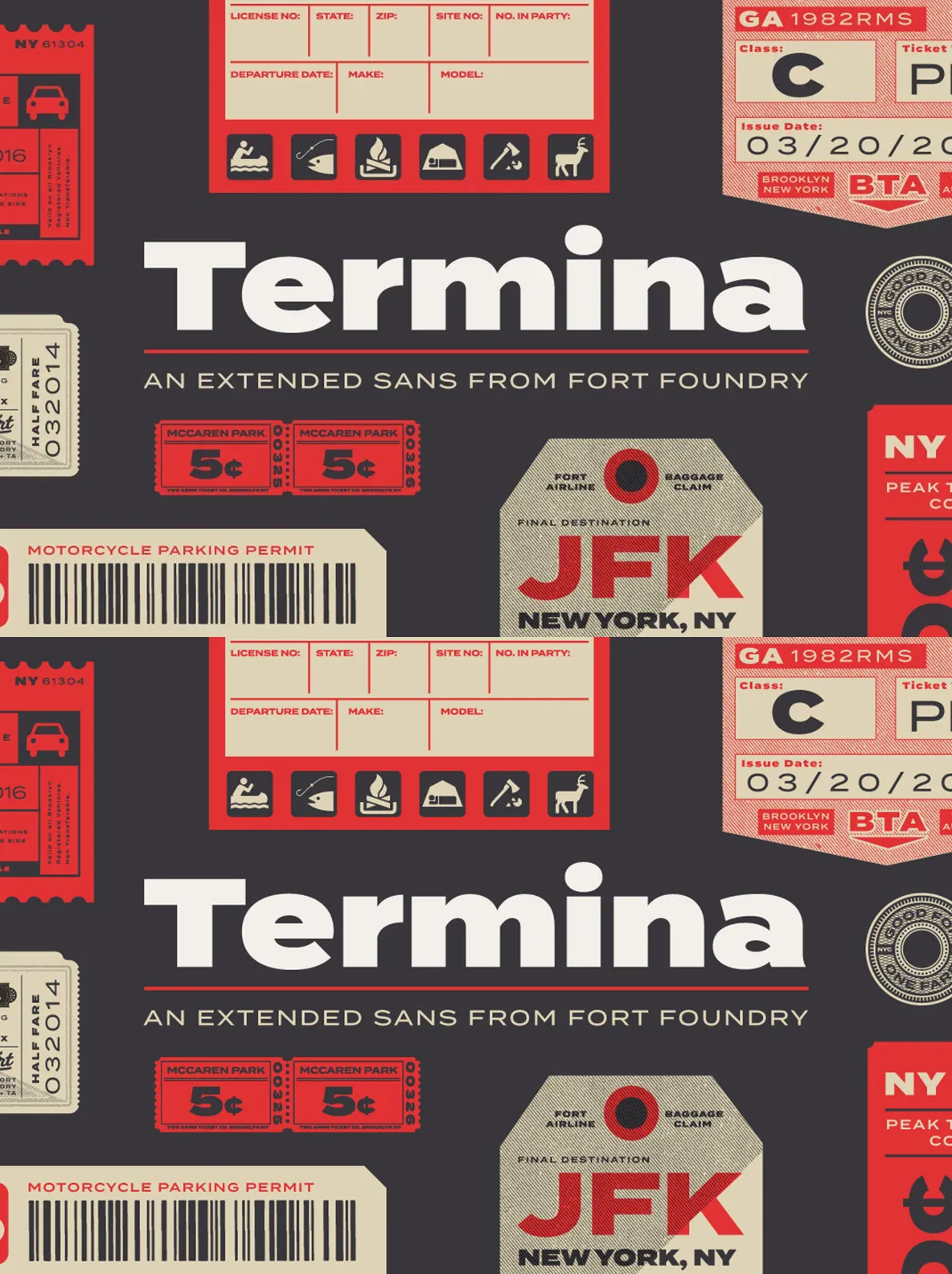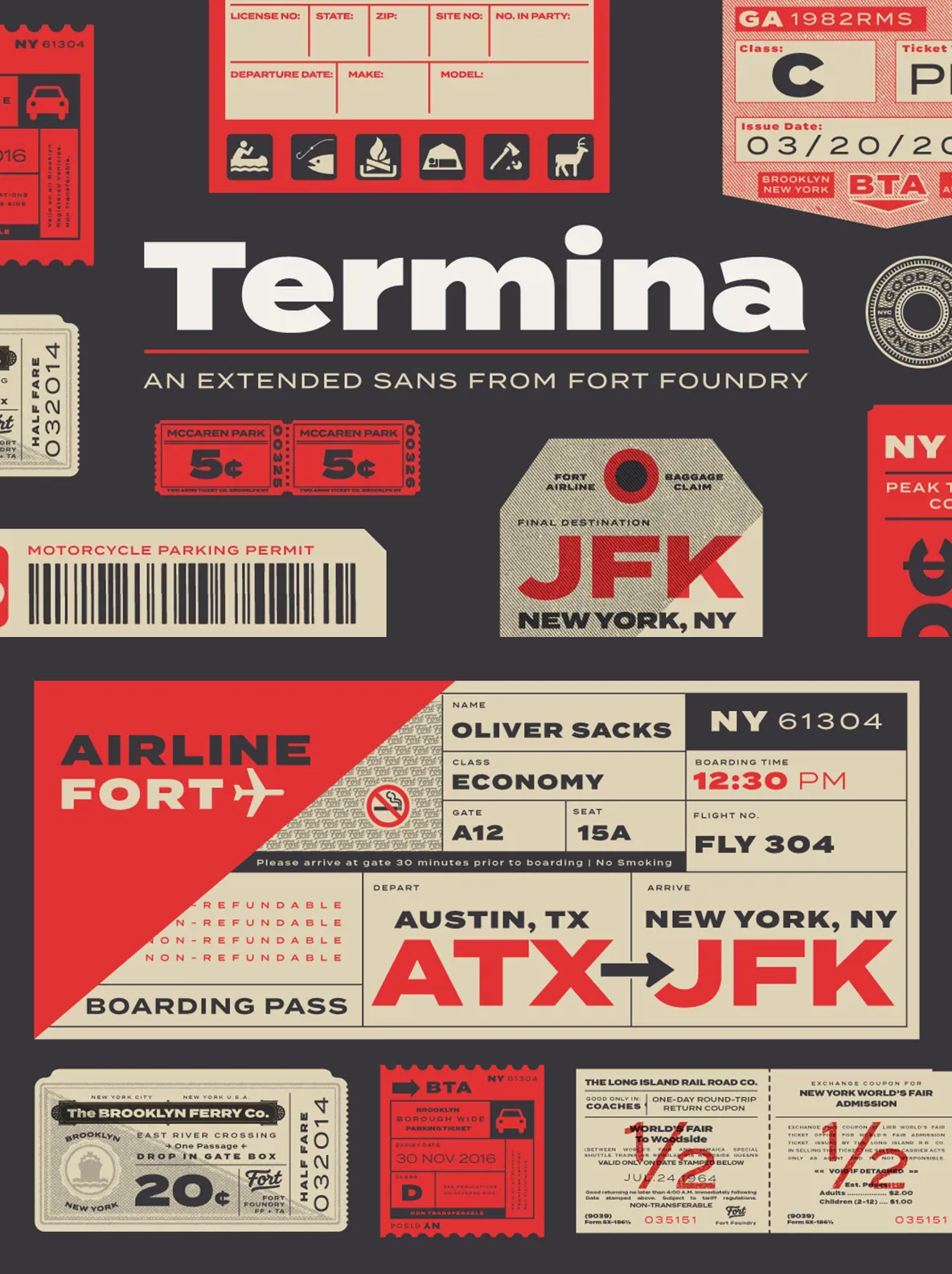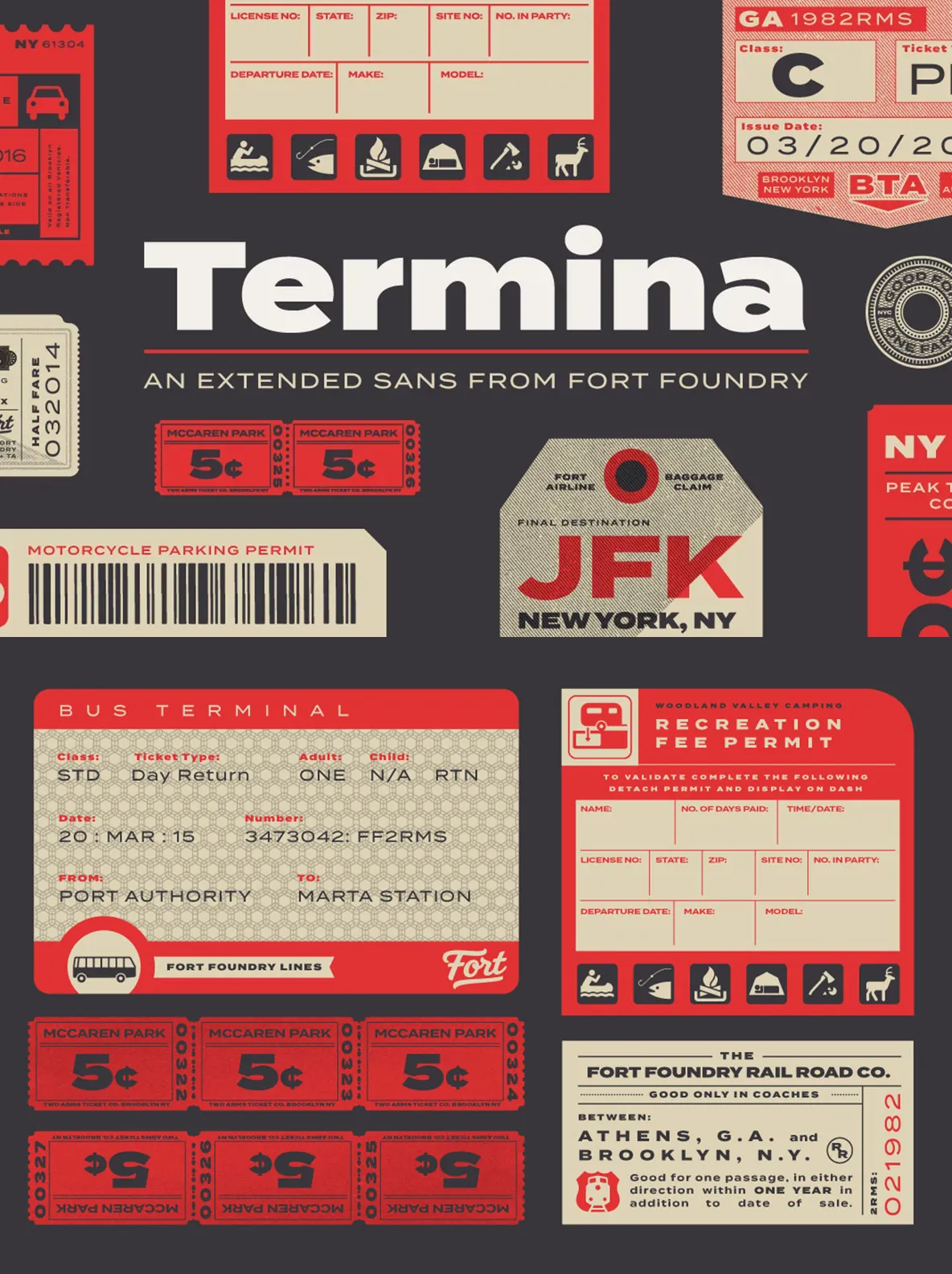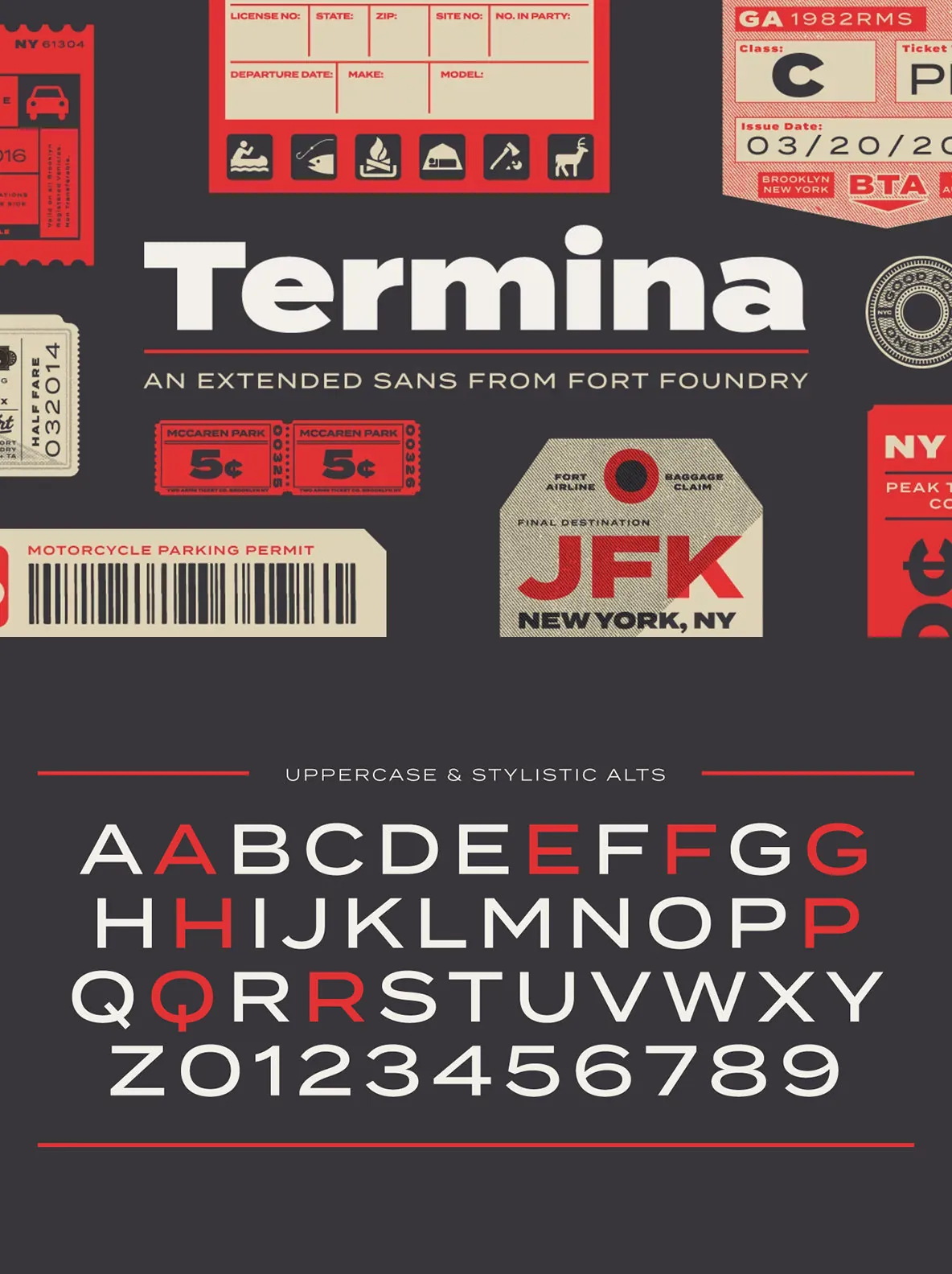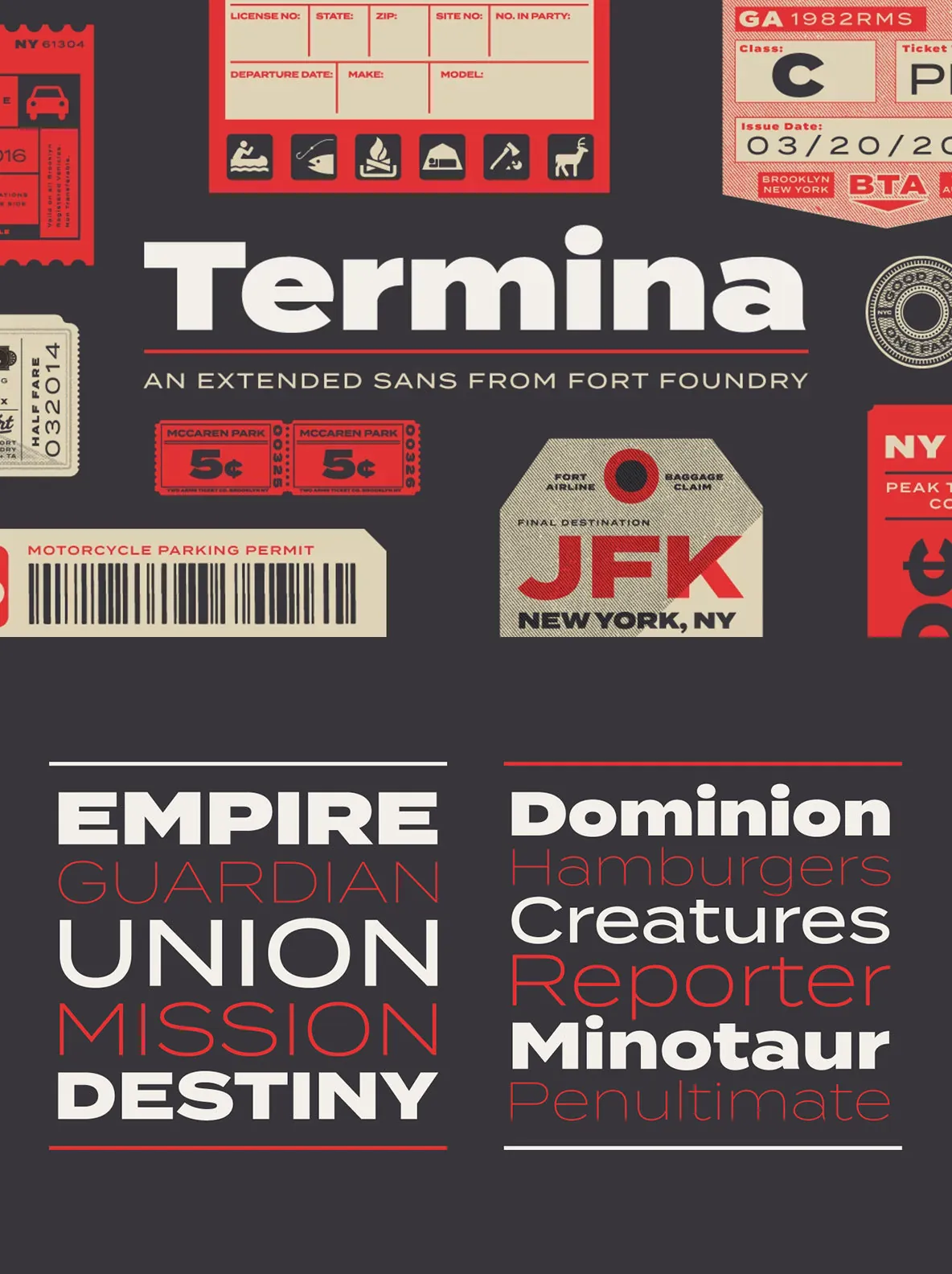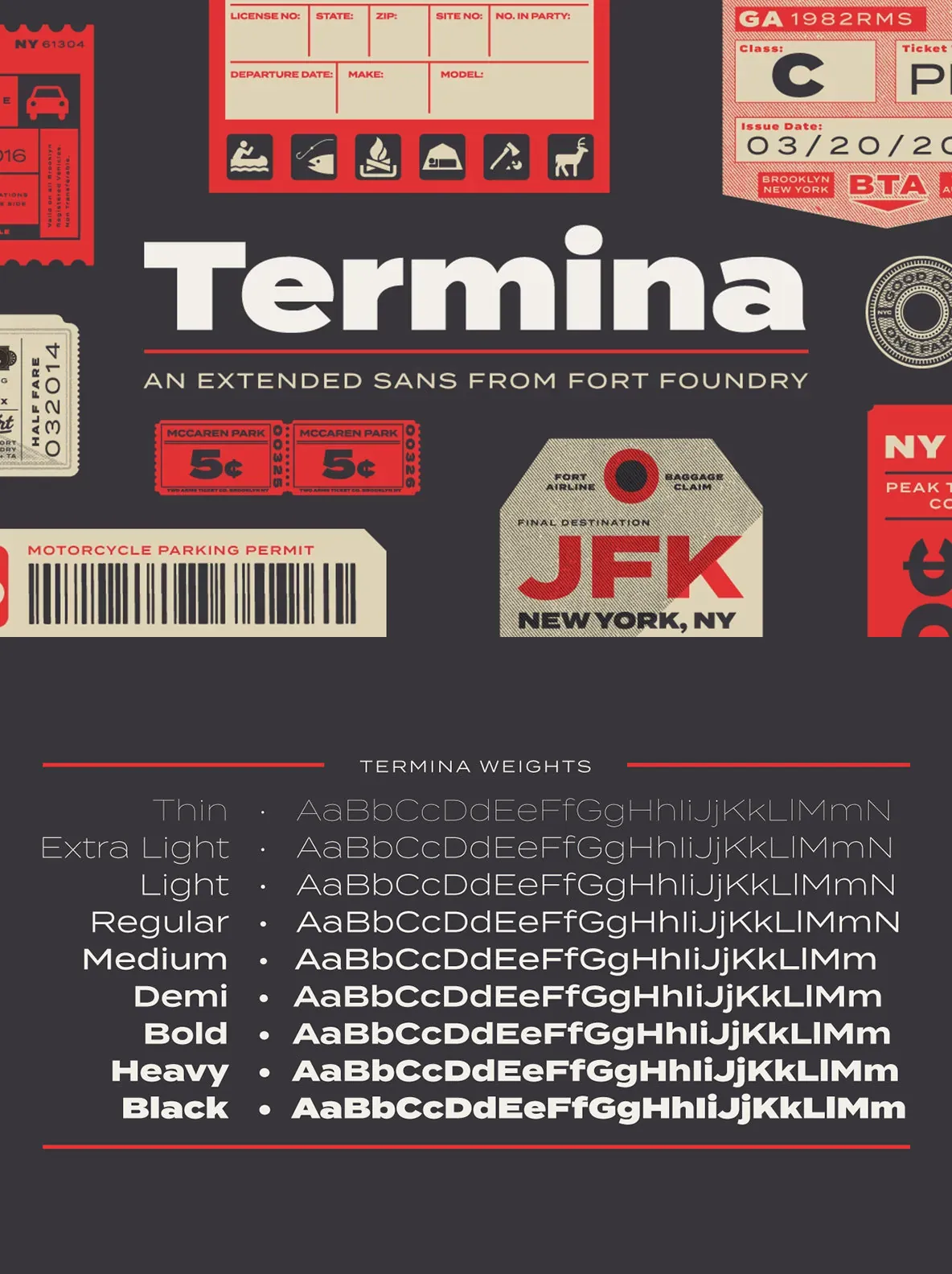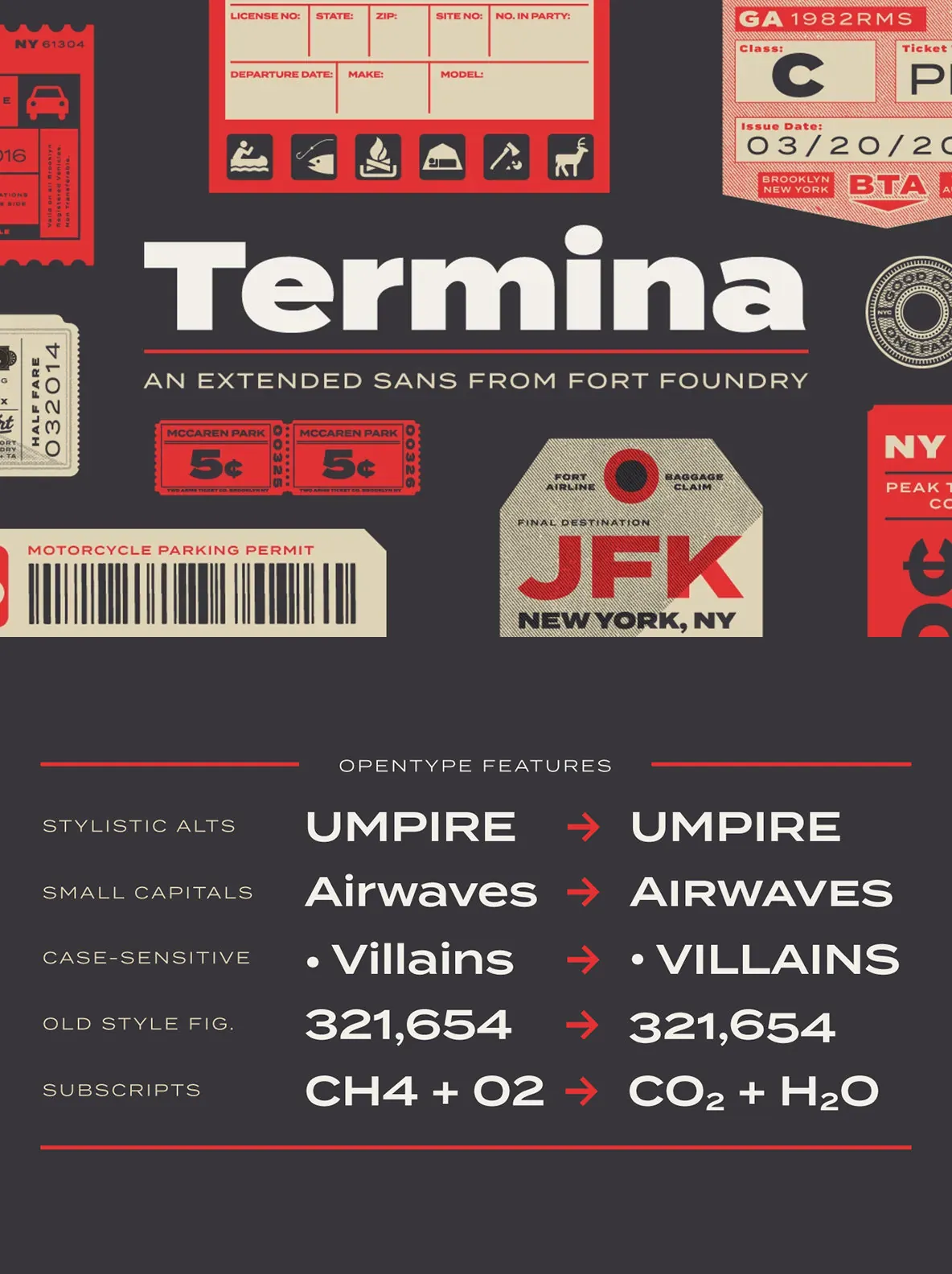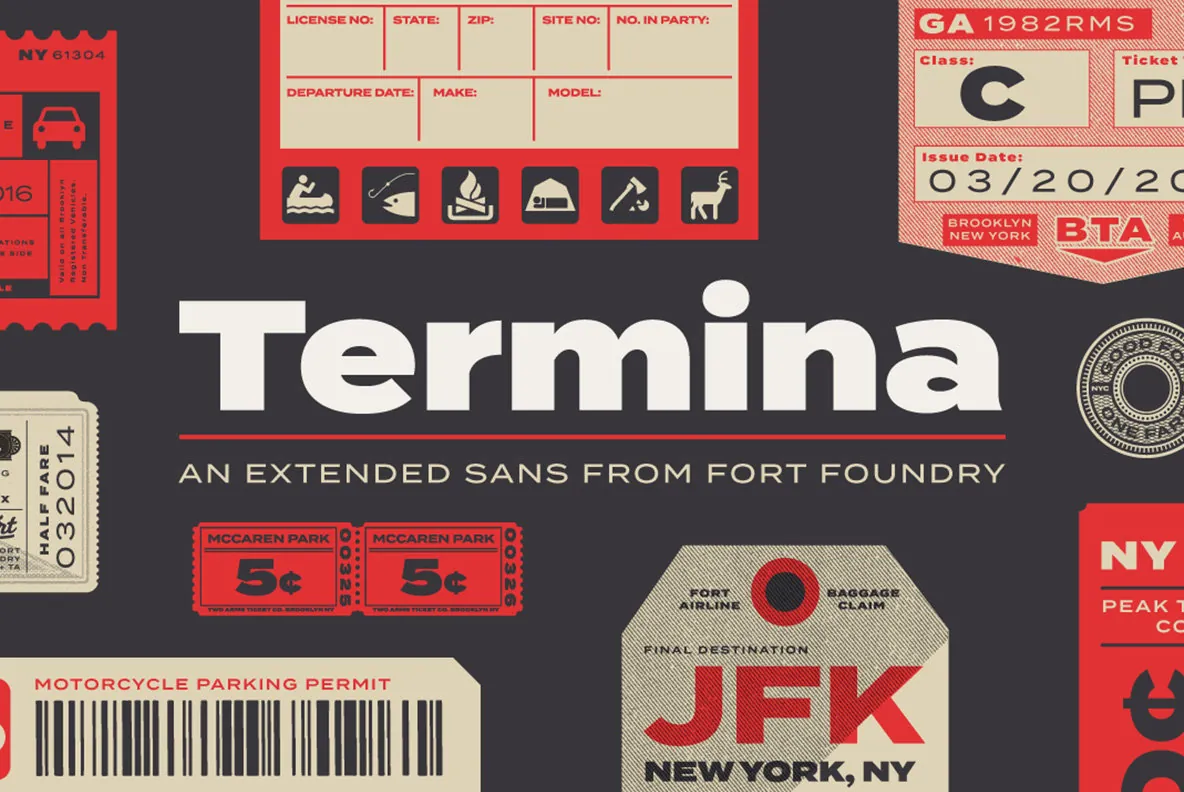
Amongst the landscape of geometrics, Termina breaks the norm with its generously wide letterforms. The typeface was conceived after finding and examining specimens for Industria, a family designed by Hermann Zehnpfundt in the early nineteen-hundreds for Emil Gursch.
Something about the strength of its extended letterforms at larger sizes and their simplicity at smaller sizes struck a chord. This is no Industria revival or clone, however—Termina is a modern take on this wide geometric, grotesque style.
The various uses can range from advertising to logotype—from small descriptors to pull quotes. The family’s high x-height and wide letterforms help retain legibility and readability at smaller sizes. Opentype features include Stylistic Alternates, Small Capitals, Old Style Figures, Case-Sensitive Forms, and more. Clocking in at 743 glyphs, Termina includes a wide array of features and language support.